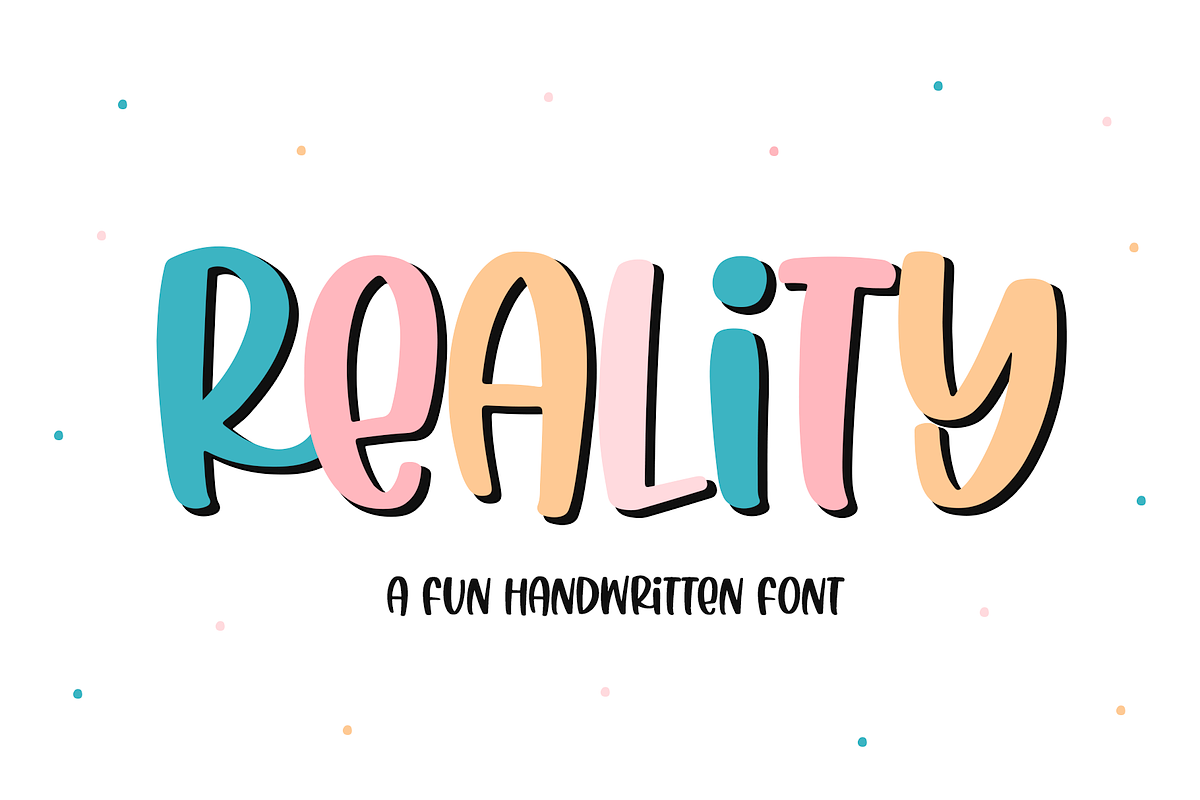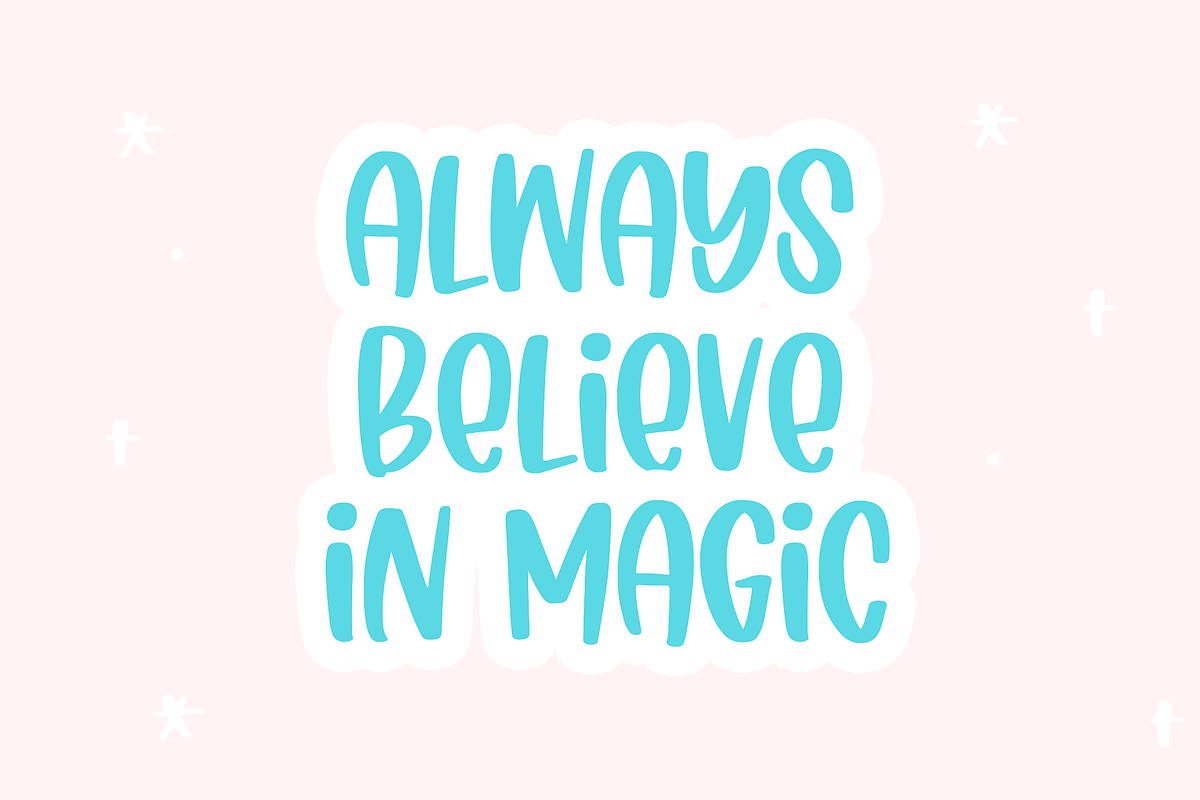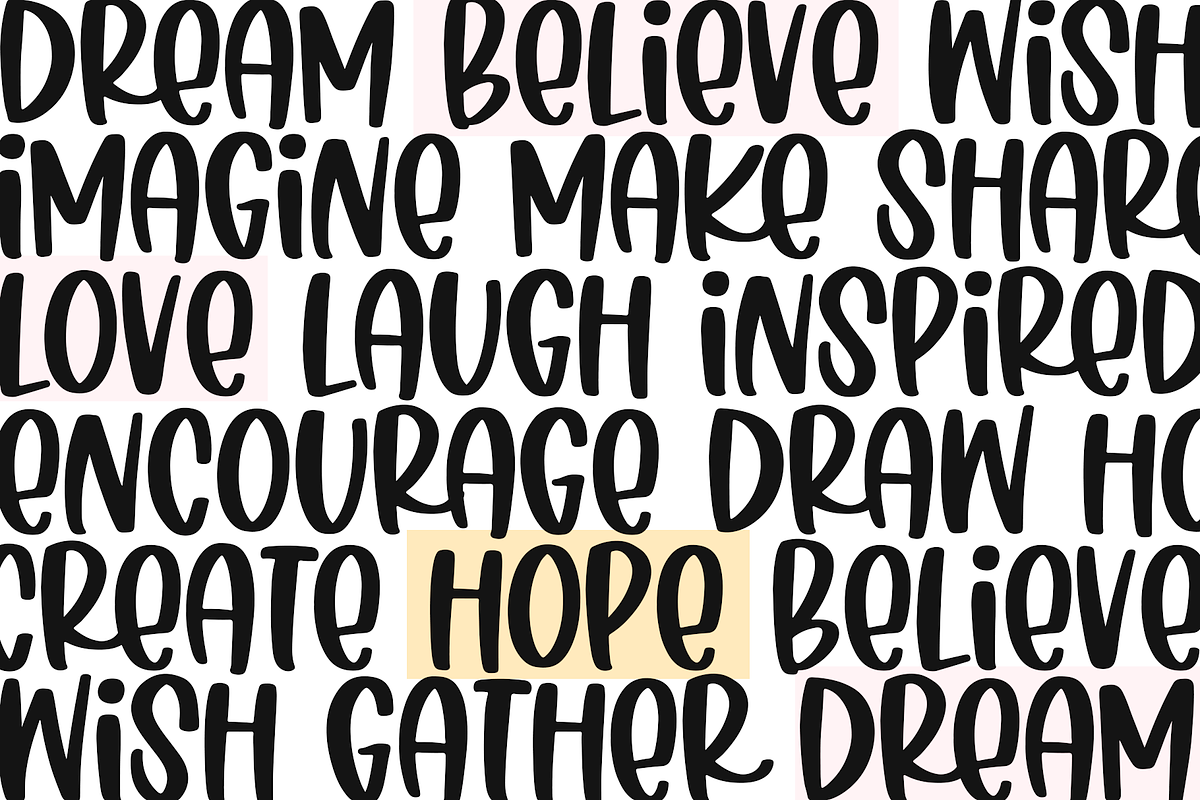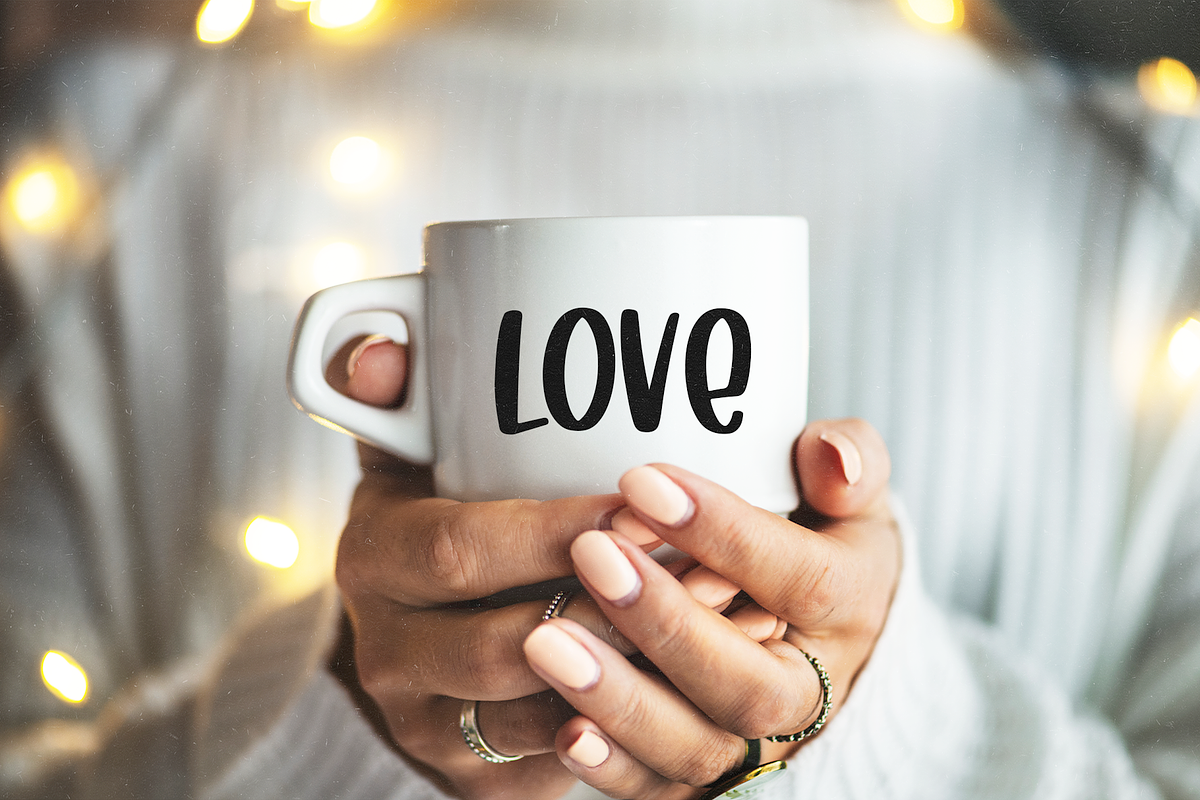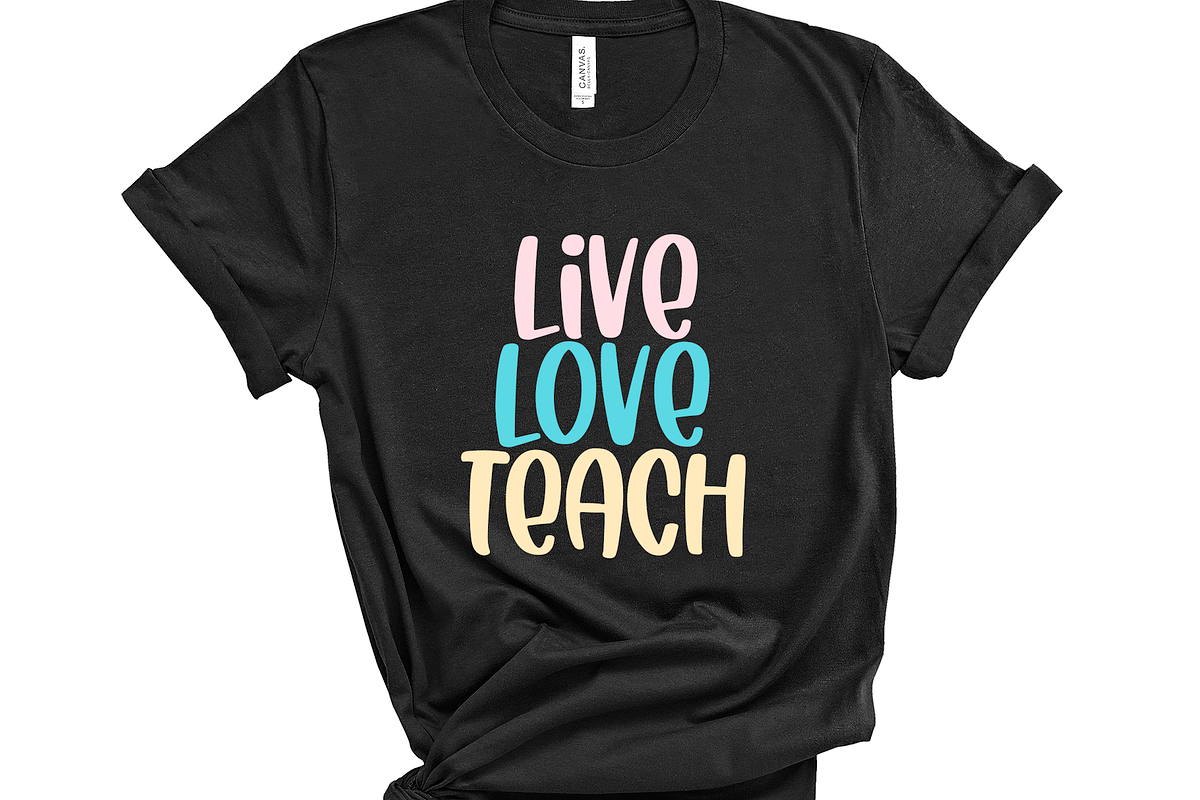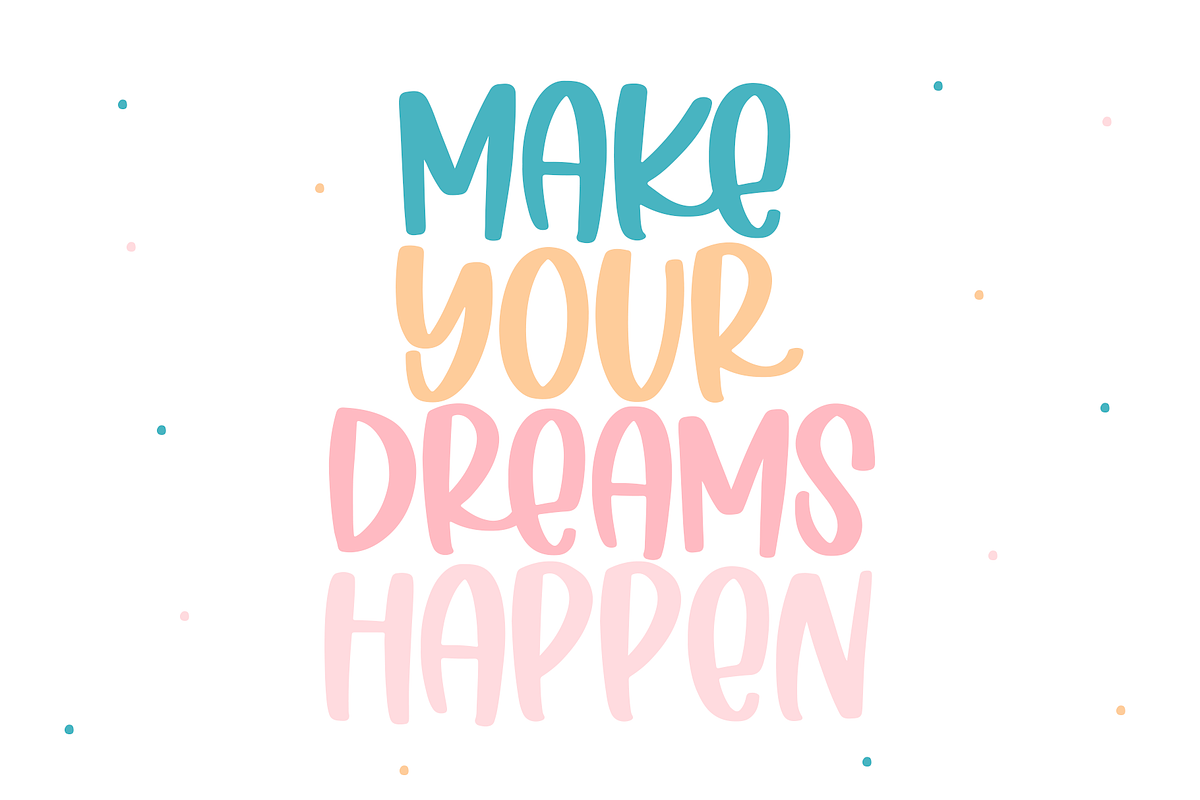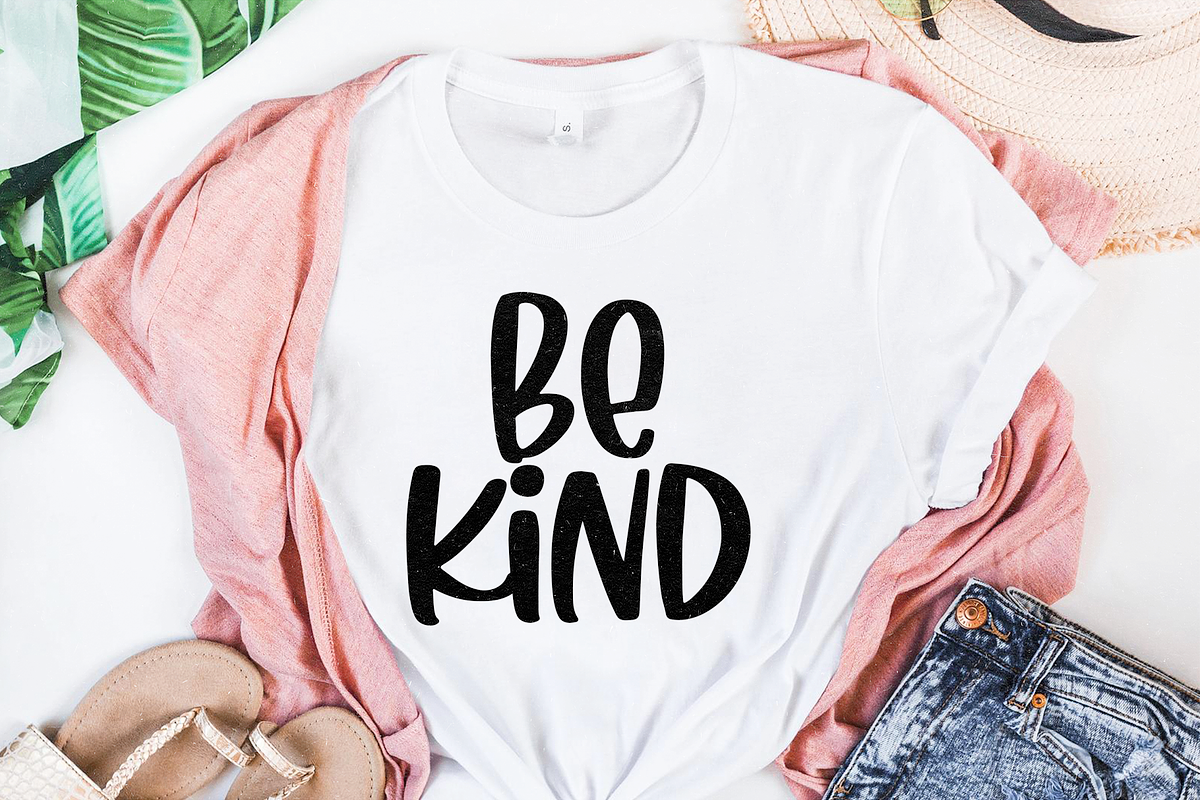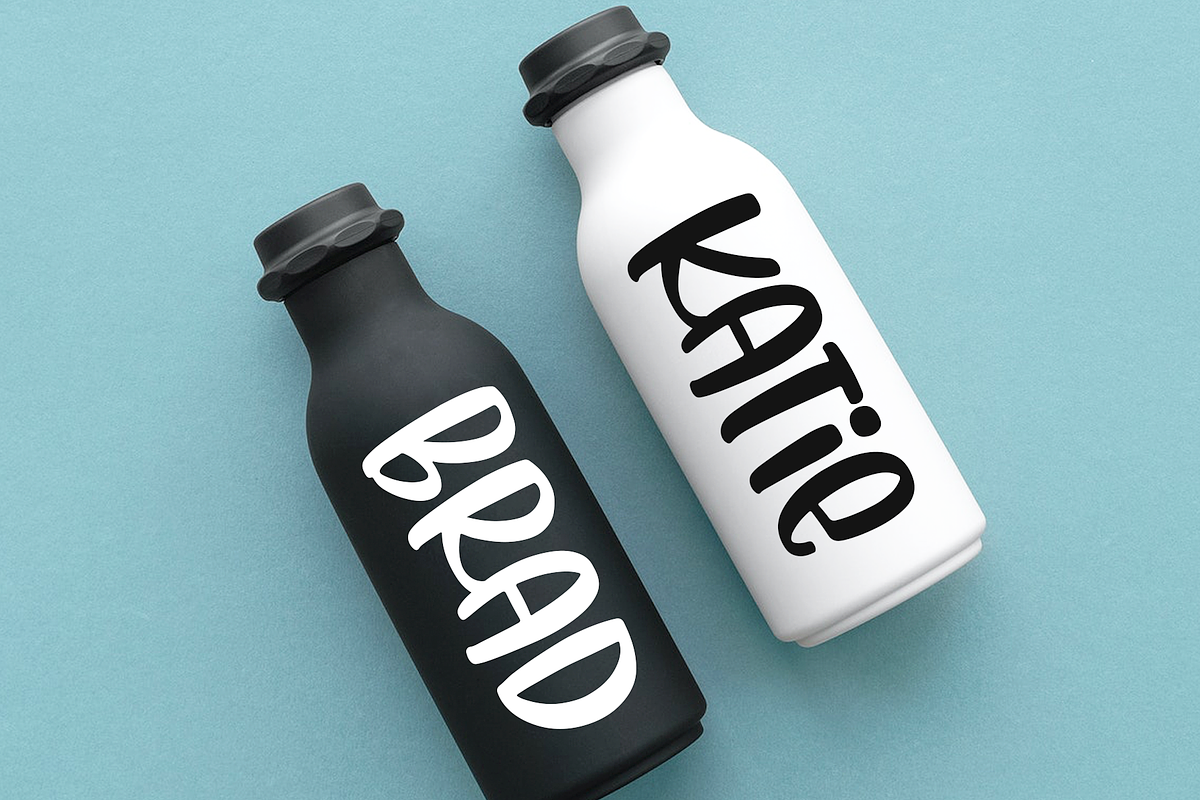
Reality | Fun Handwritten Font
Reality is a fun + quirky handwritten font!
This font is perfect for all of your cricut + crafting projects, branding, shirt design, svg designs and more!
Reality | Fun Handwritten Font by KA Designs fits naturally into Branding, posters, packaging, typography.